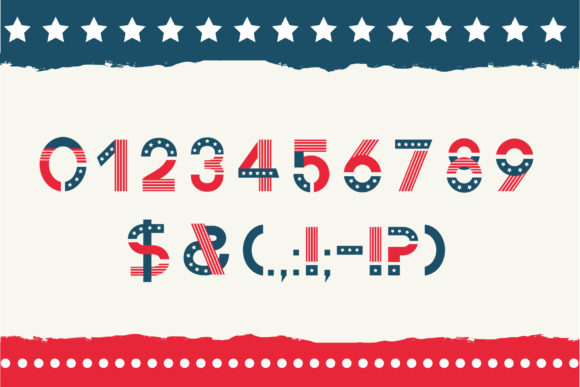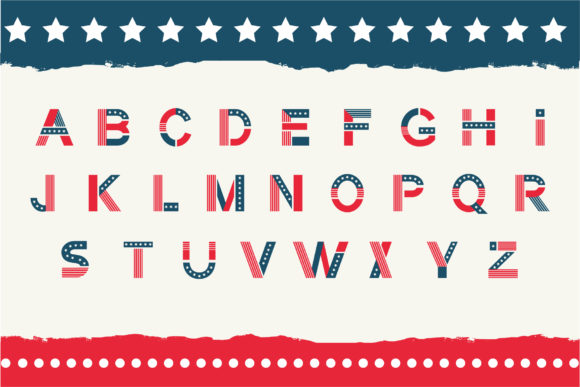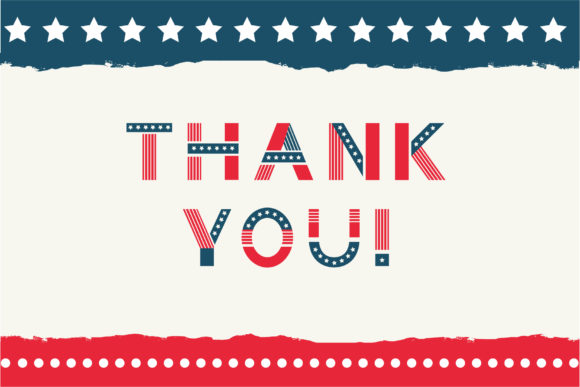
The Star-Spangled Font: Unlocking the Potential of America Font
I’ll never forget the time I was working on a project for a 4th of July client request, and I just couldn’t find the perfect font to match the patriotic theme. The client wanted something that screamed “America” without being too on-the-nose, and I was determined to deliver. That’s when I stumbled upon the America Font, a unique and patriotic color font that stole my heart. In this article, I’ll share my experience with this amazing font, its features, and how to make the most of it in various design platforms.
First Impressions: A Patriotic Masterpiece
The America Font is a game-changer for any designer looking to add a touch of patriotism to their projects. This Opentype-SVG font features red and blue letters and numbers, adorned with white stars as ornaments. It’s perfect for a variety of America-themed projects, from Independence Day designs to patriotic crafts.
Here’s what I love about the America Font:
- ✨ Unique and patriotic design that’s sure to turn heads
- 🎉 Color font (Opentype-SVG) allows for easy editing and customization
However, there are a few quirks to keep in mind:
- 🤔 Some users may find the font a bit tricky to use, especially if they’re new to color fonts or Opentype features
The America Font was designed with the intention of capturing the spirit of America in a unique and creative way. The designer wanted to create a font that would be perfect for patriotic projects, from Independence Day designs to everyday crafts. With its bold and colorful design, the America Font is sure to become a favorite among designers and crafters alike.